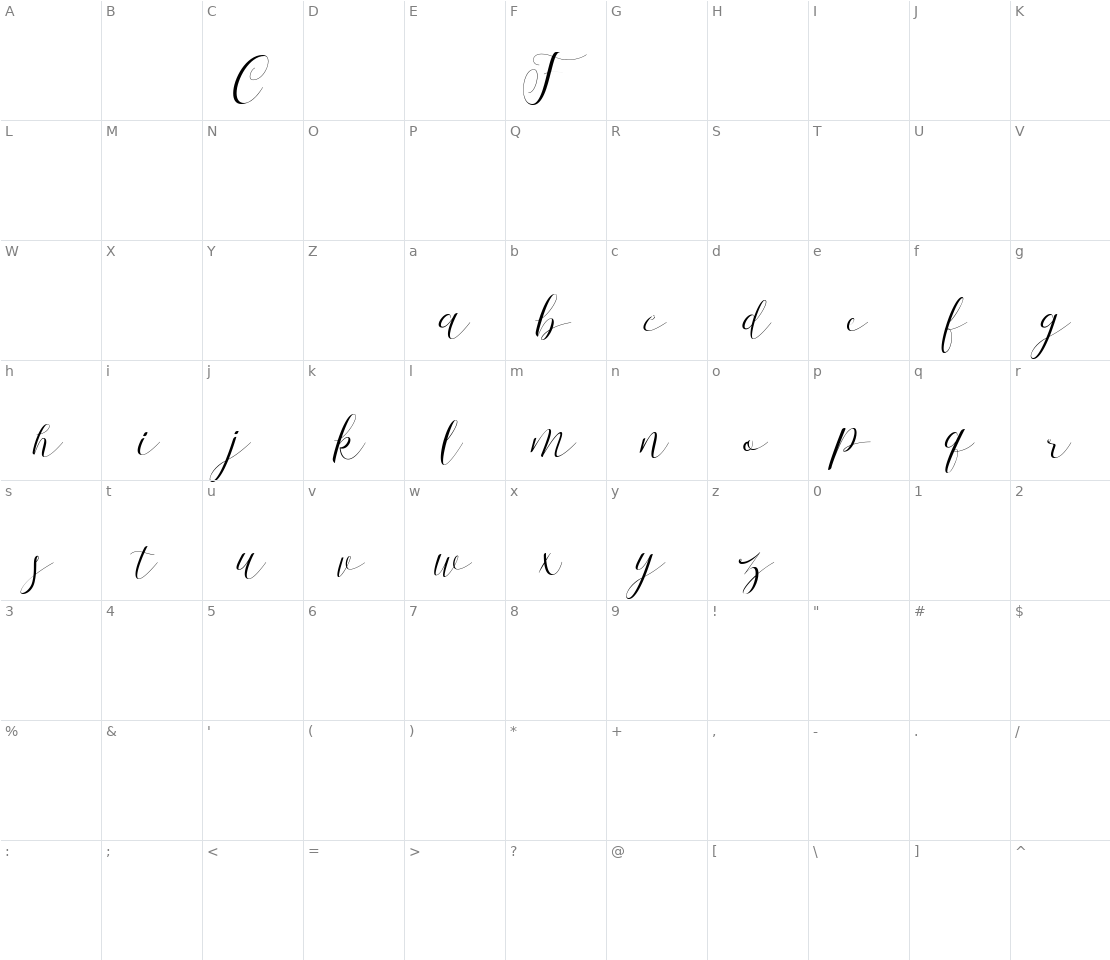
First Choice
First Choice is a delicate calligraphic script from Konstantine Studio with thin, flowing strokes and ornamental swash details that give it a distinctly feminine elegance. The letterforms feel hand-lettered in a careful, unhurried way, with graceful flourishes that stay legible rather than overwhelming the text. A natural pick for wedding invitations, luxury branding, and formal stationery where refinement is the whole point.